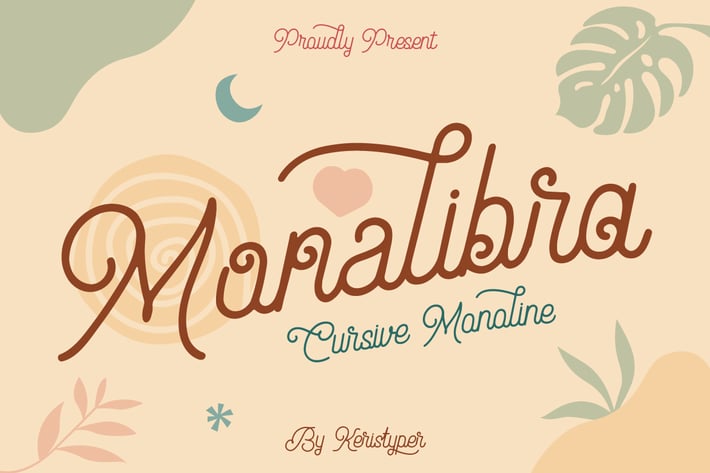
Monalibra Font
Introducing Monalibra, an elegant vintage handcrafted font. Designed with a really clean and clear monoline cursive script typeface that is easy to read while keeping a sense of personality. This font is good for logo design, Social media, Movie Titles, Books Titles, short text even long text letters, and good for your secondary text font with sans or serif.
Standard Uppercase & Lowercase
Multilingual : ä ö ü Ä Ö Ü ß ¿ ¡
Alternate & Ligature